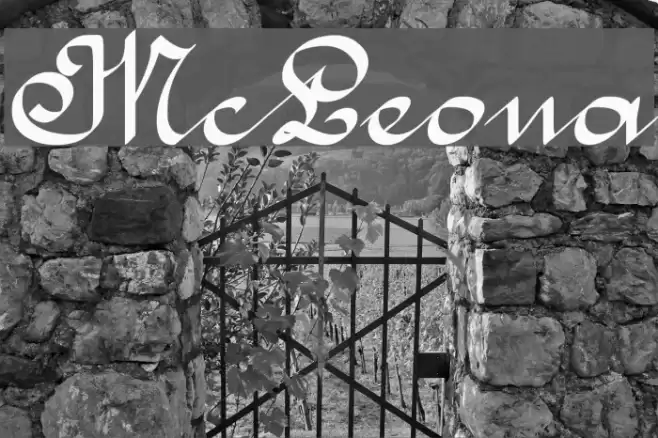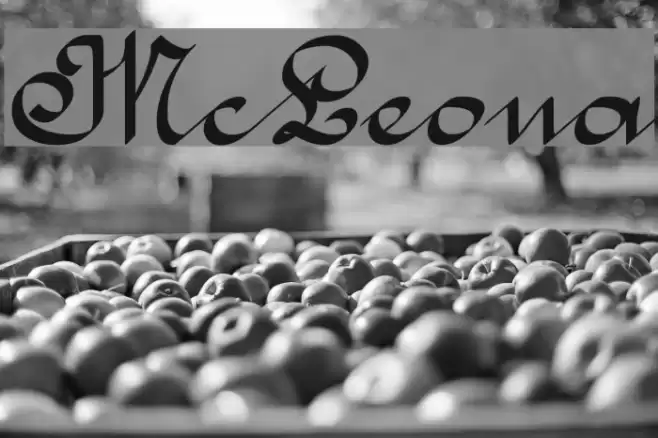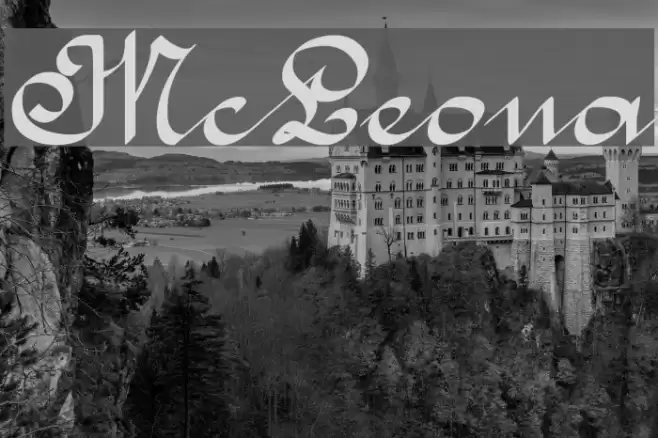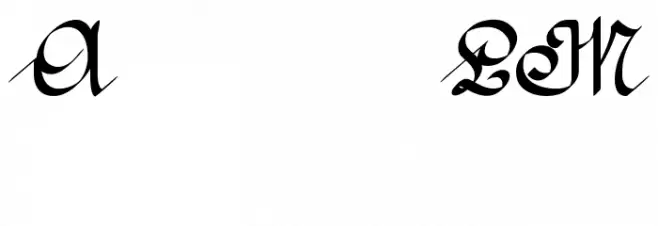
McLeona Font
McLeona Description
This font exhibits a bold and elegant script style, characterized by its flowing, cursive strokes and intricate detailing. The uppercase letters are ornate, with sweeping lines and flourishes that give a sense of movement and sophistication. The lowercase letters maintain a consistent slant, enhancing the cursive aesthetic, while the overall design balances readability with artistic flair. The numerals and special characters are crafted to match the decorative nature of the alphabet, making this font suitable for creative and formal applications.
A bold, elegant script font with flowing, cursive strokes and intricate detailing from Uncategorized fonts.
- Proposed Projects: Ideal for wedding invitations, elegant branding, logo design, and decorative headings.
- Overall Style: Elegant, Decorative
- Use Case: Headlines, Logos, Invitations